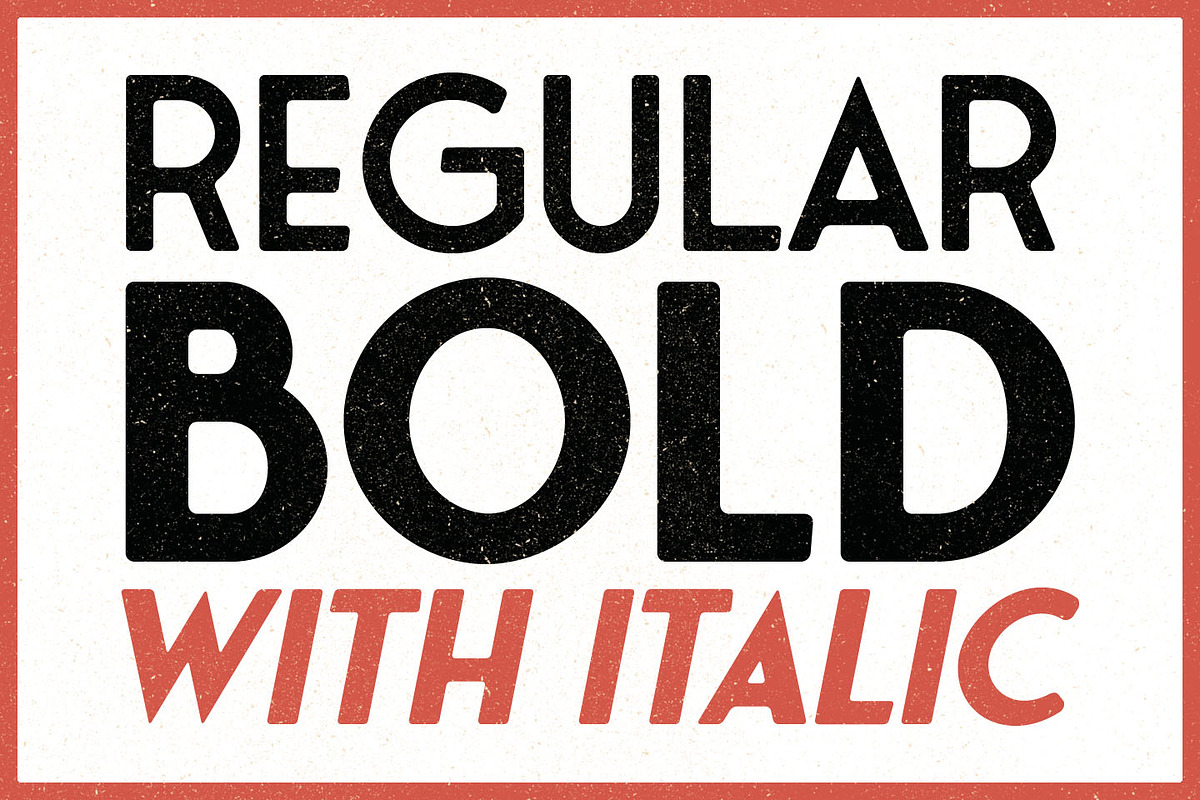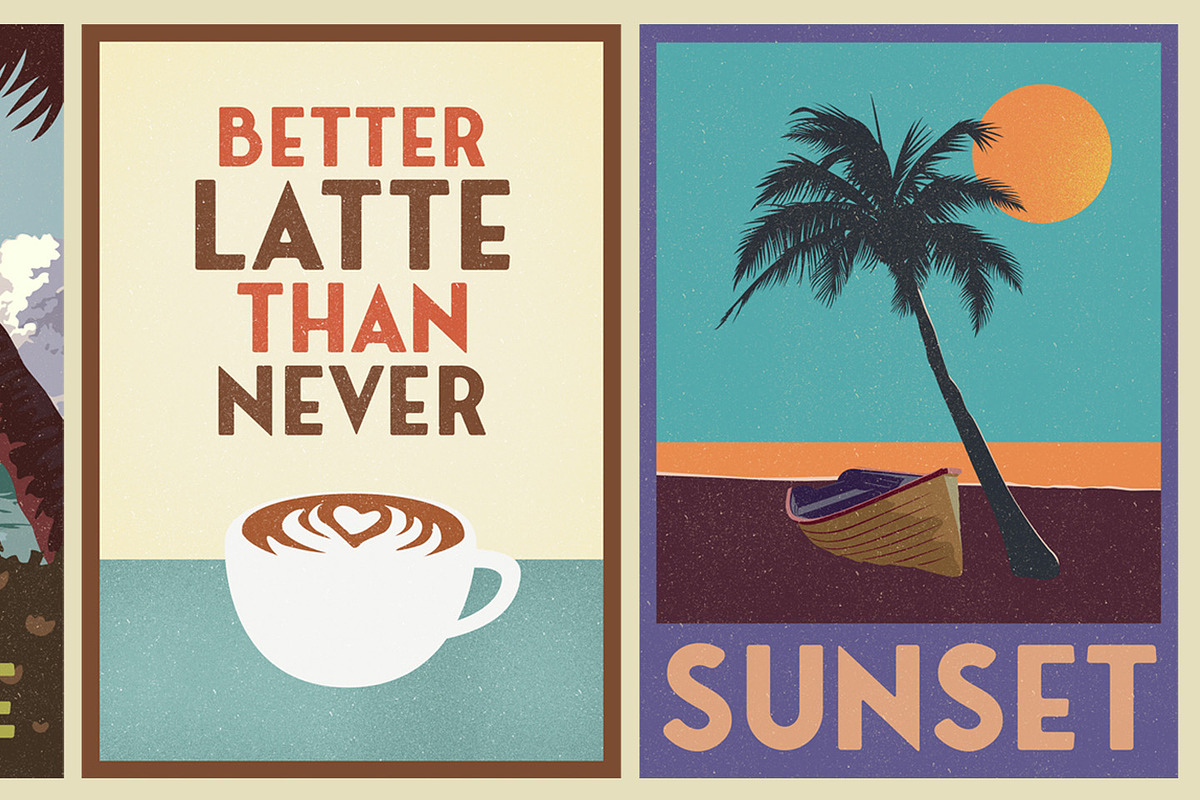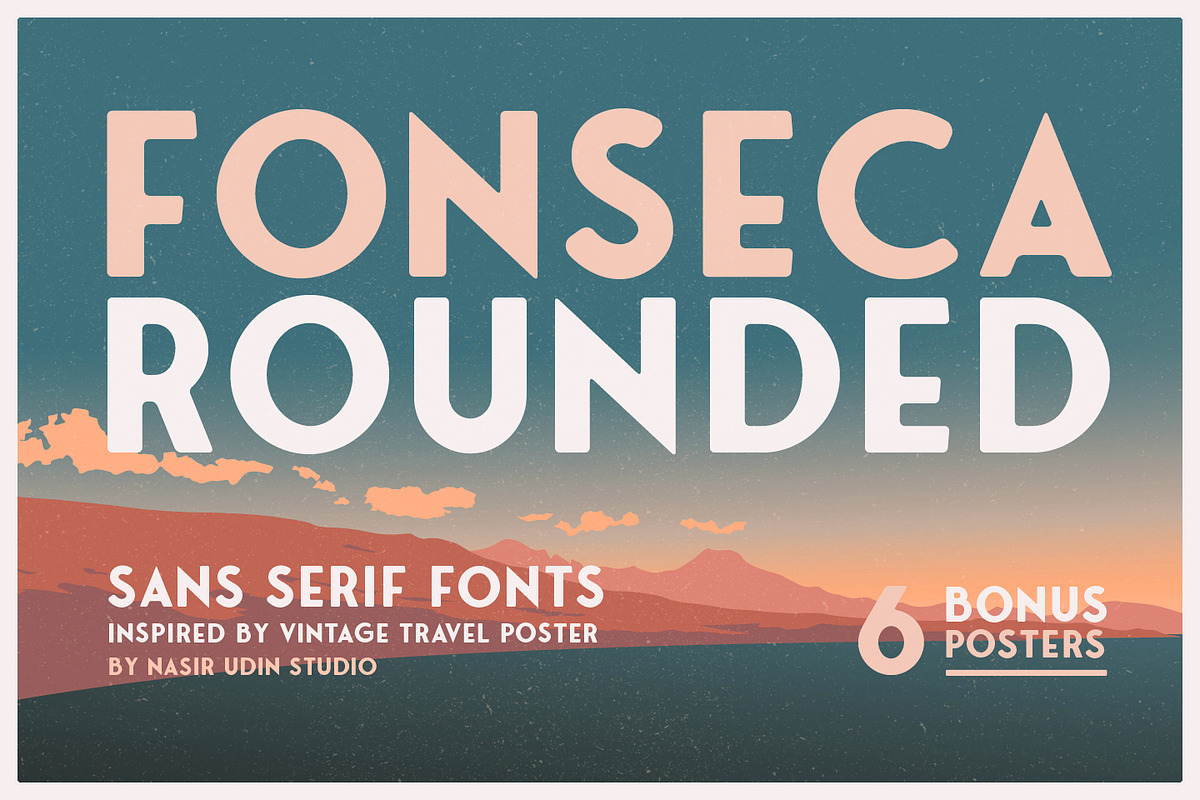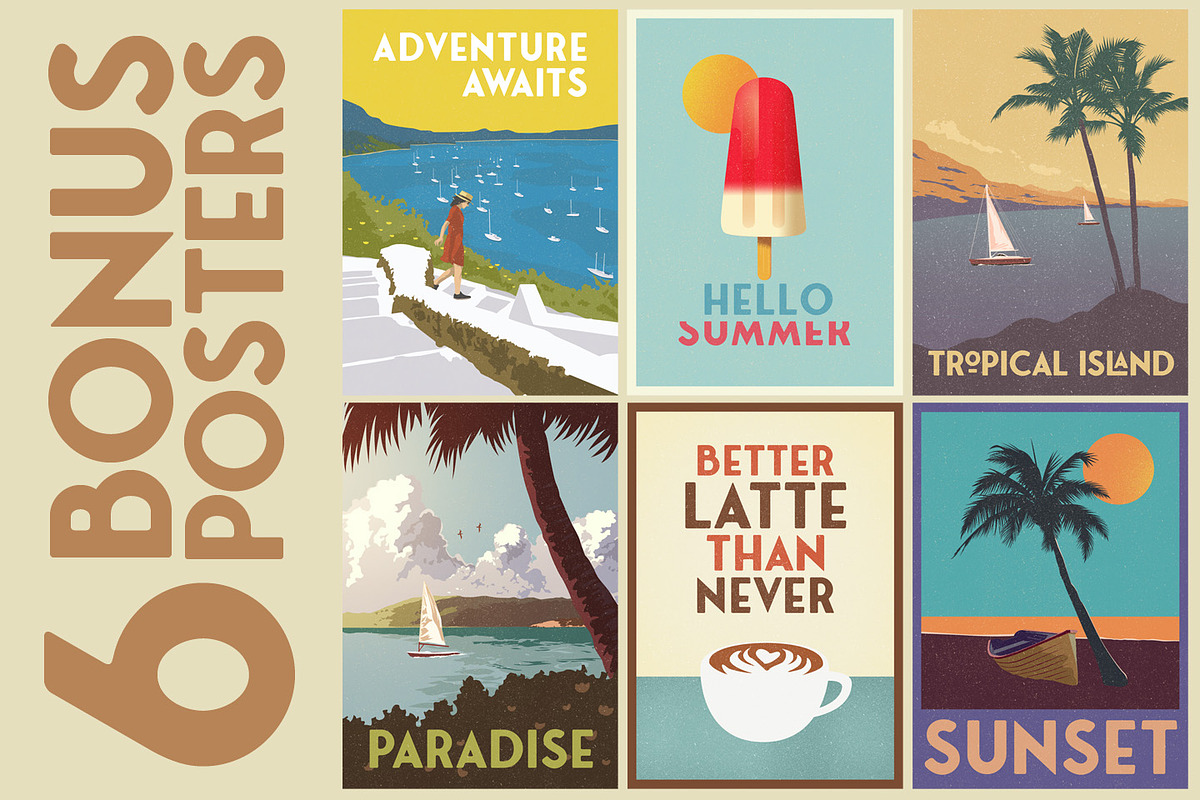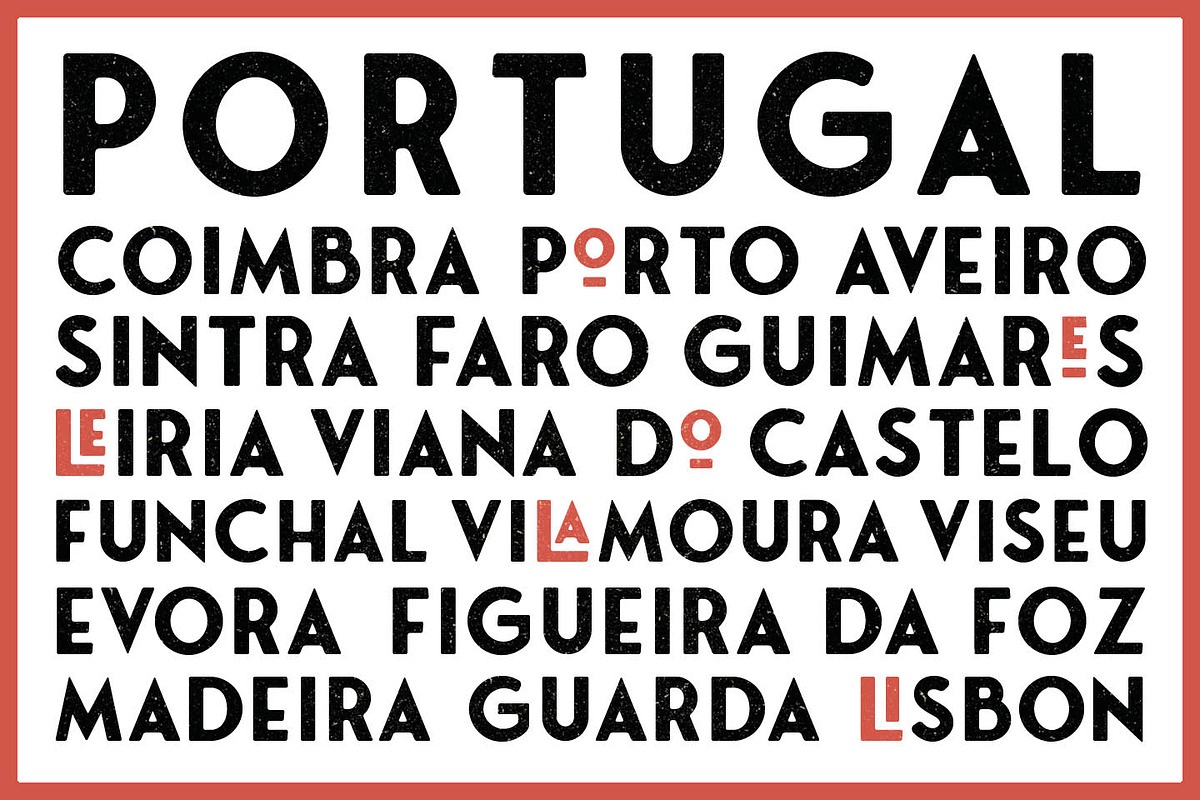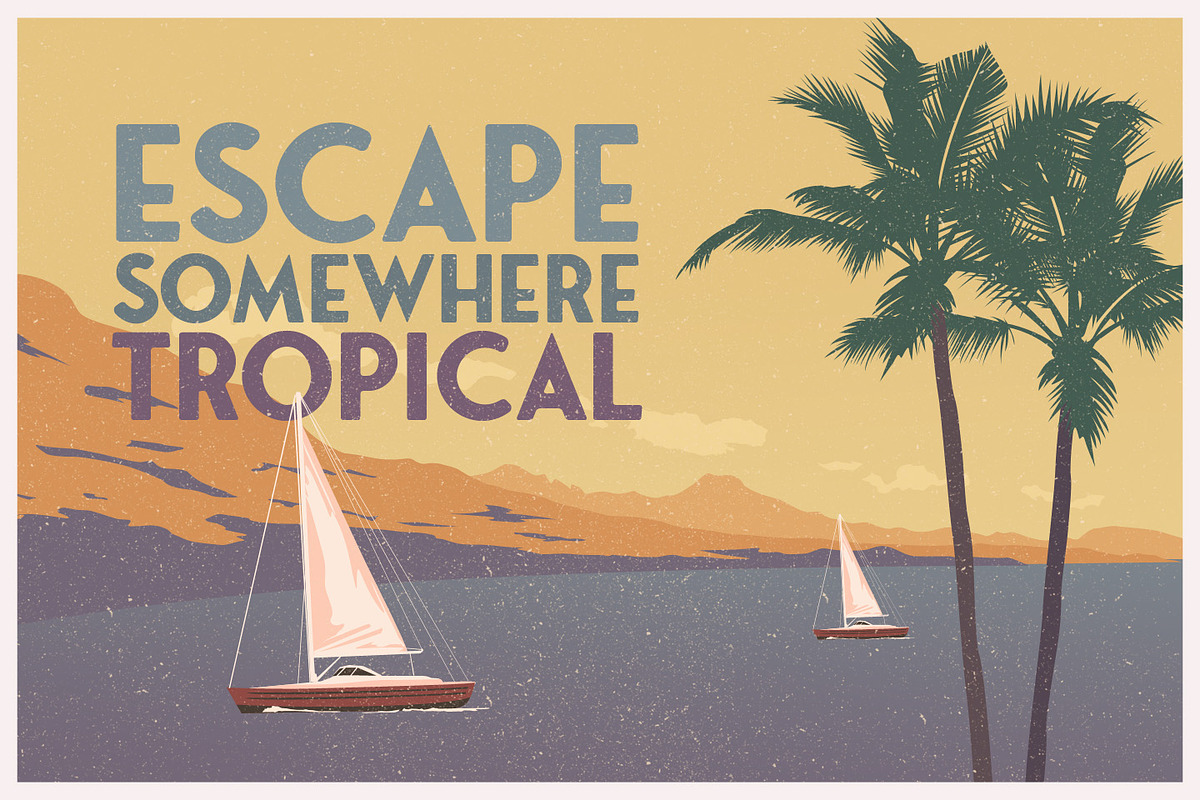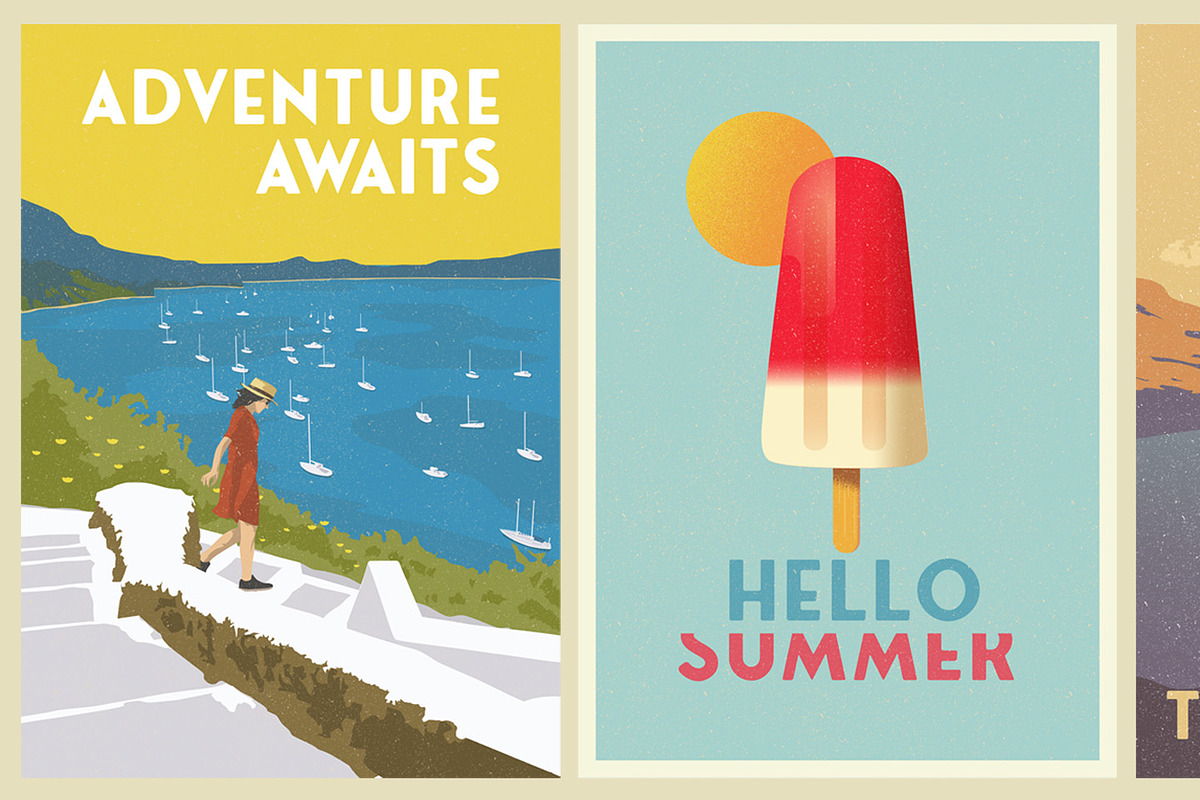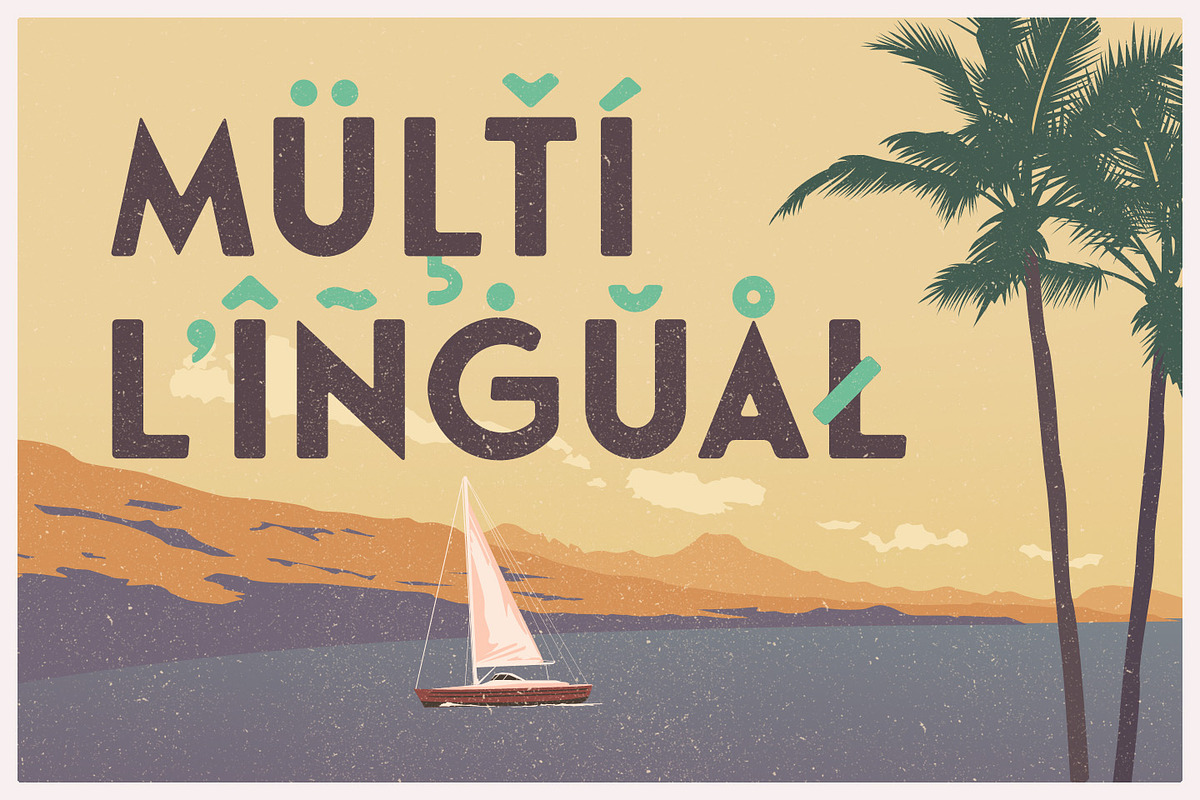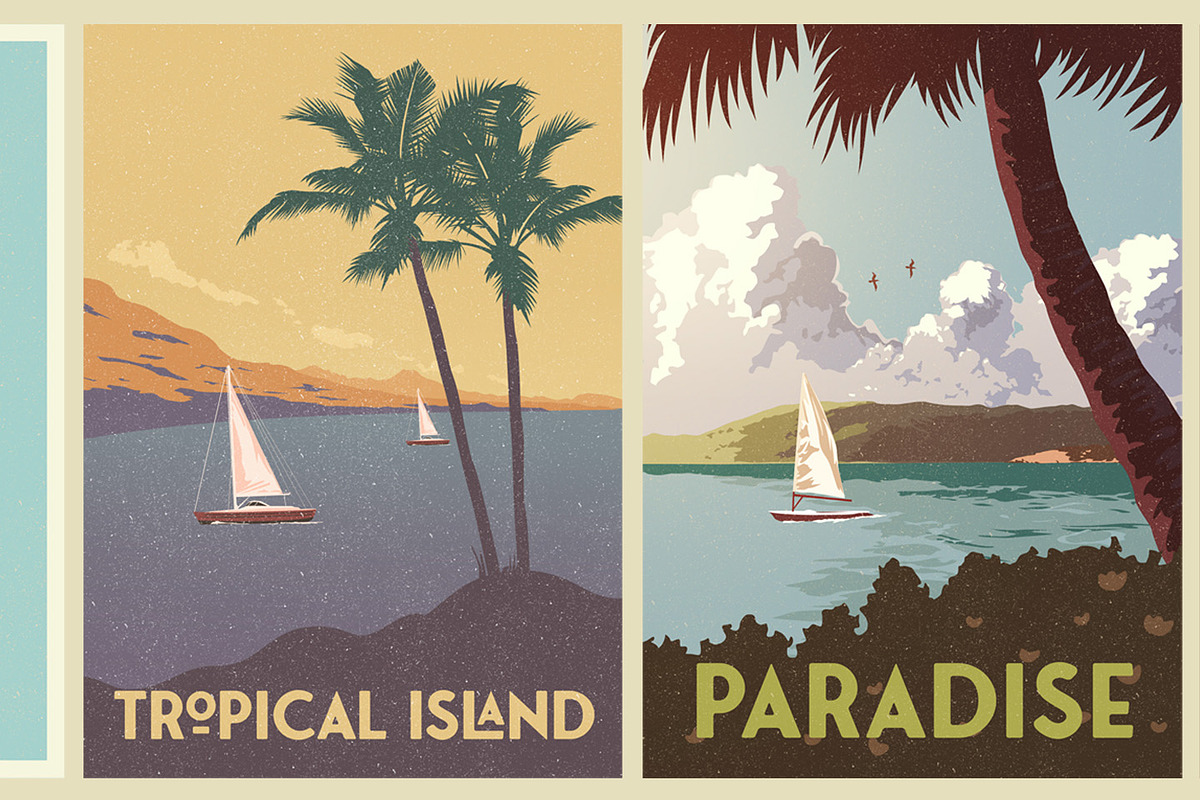
Fonseca Rounded +BONUS RETRO POSTERS
Inspired by Vintage Travel Posters, Fonseca Rounded is a beautiful sans serif font with a contemporary feel. Get inspired by its timeless and classic appeal.
This display sans serif family is perfect for headlines, posters, logos, branding projects, magazines, and packaging.
- 4 fonts, 2 weights, 2 styles
- Stylistic alternates for letter ‘O’ and ‘E’
- Special ligatures LA LE LI LO LU